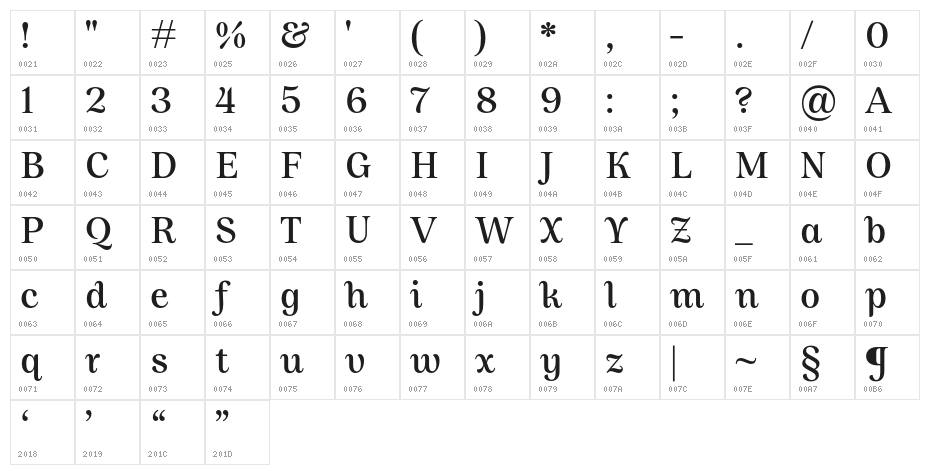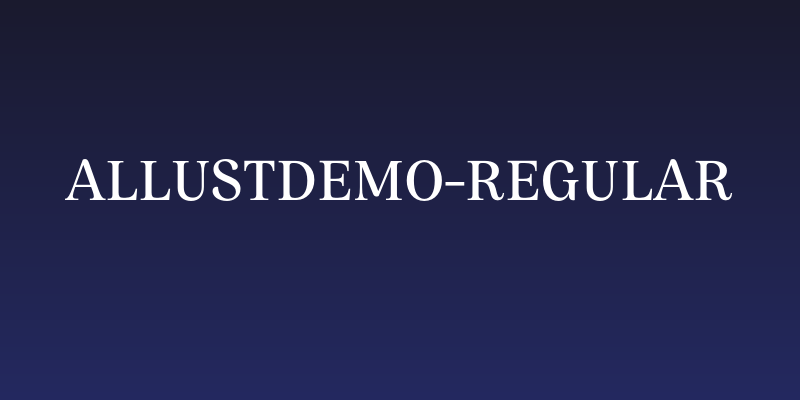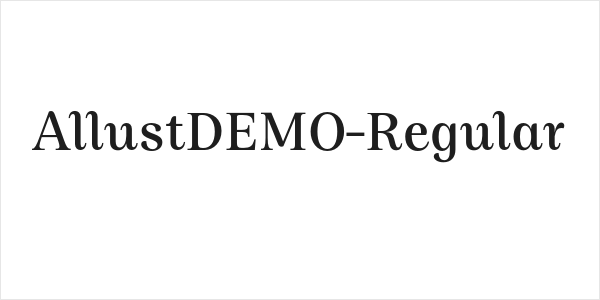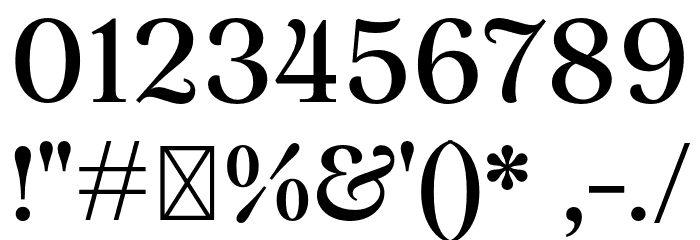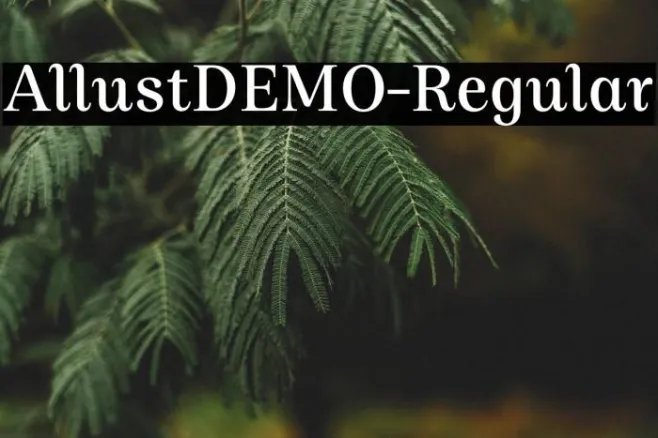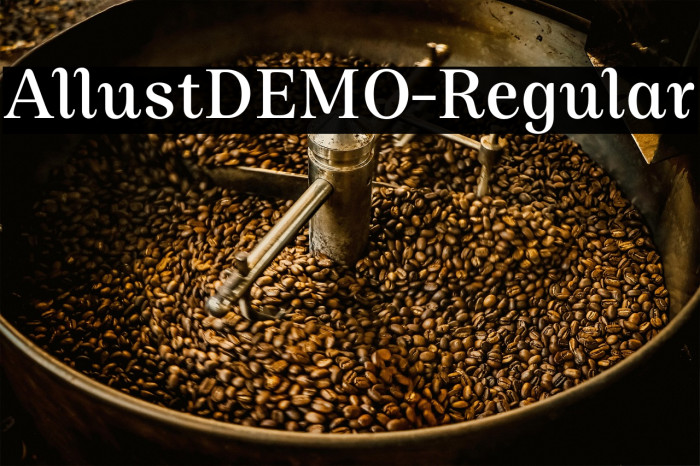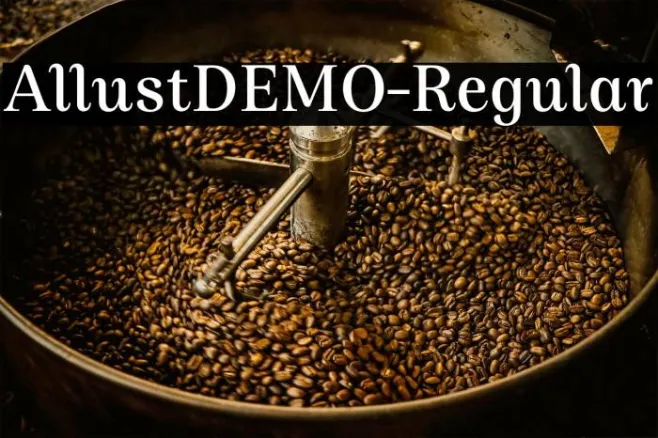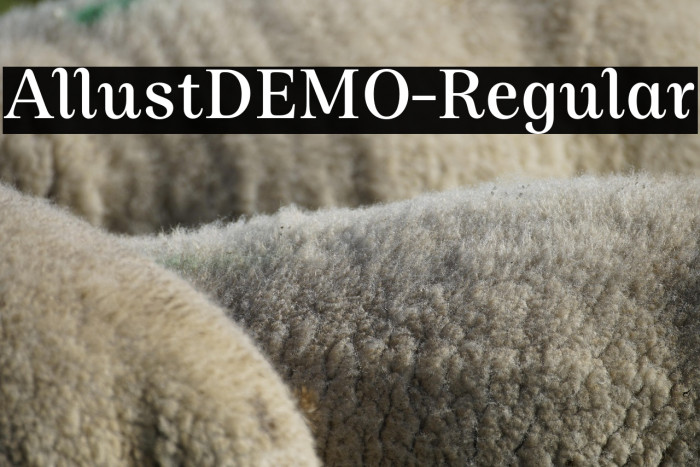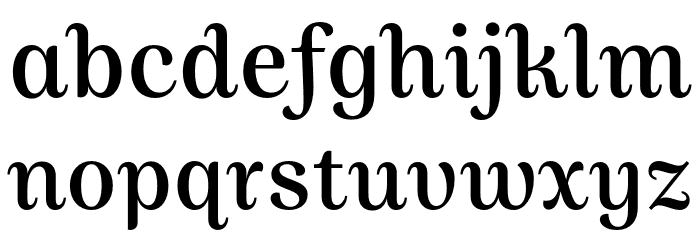
AllustDEMO-Regular Font
AllustDEMO-Regular Description
This font features a classic serif style with elegant curves and a refined appearance. The uppercase letters are bold and commanding, while the lowercase letters maintain a softer, more approachable feel. The numerals are clear and distinct, making them easy to read. Special characters are well-integrated, maintaining the overall aesthetic. The font's design is versatile, suitable for both formal and creative applications. Its balanced proportions and moderate contrast in stroke thickness give it a timeless quality, making it ideal for a variety of design projects.
| Proposed Projects | Ideal for book covers, editorial design, branding, and formal invitations. |